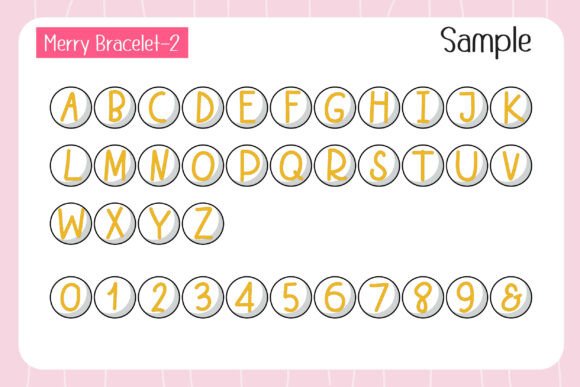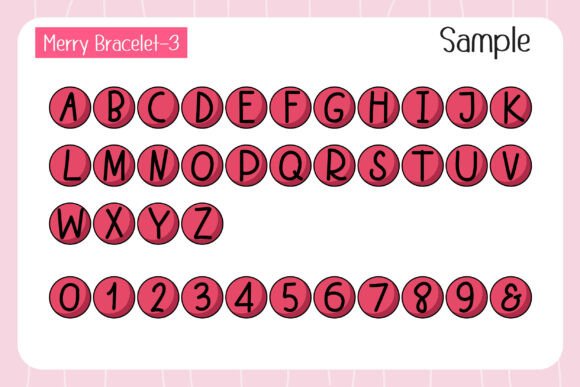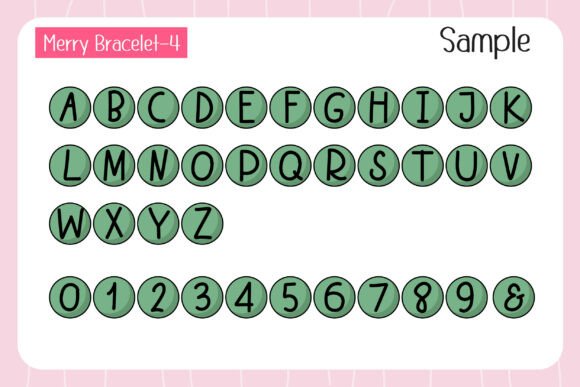
Merry Bracelet Font
Introducing “Merry Bracelet” — a playful color font inspired by the charm of friendship bracelets, combined with the joyful spirit of Christmas! Designed with festive colors and adorable Christmas shapes, this font captures the fun of beaded letters while adding a holiday twist. Featuring 4 bead-shaped letter color font styles and 1 decorative font, it also comes with 45 matching doodles (using the same design as the decorative font) to make your creations extra festive. Perfect for Christmas custom designs, posters, quotes, banners, party signs, stickers, scrapbook pages, DIY crafts, and so much more, “Merry Bracelet” brings a unique and cheerful touch to all your holiday projects!